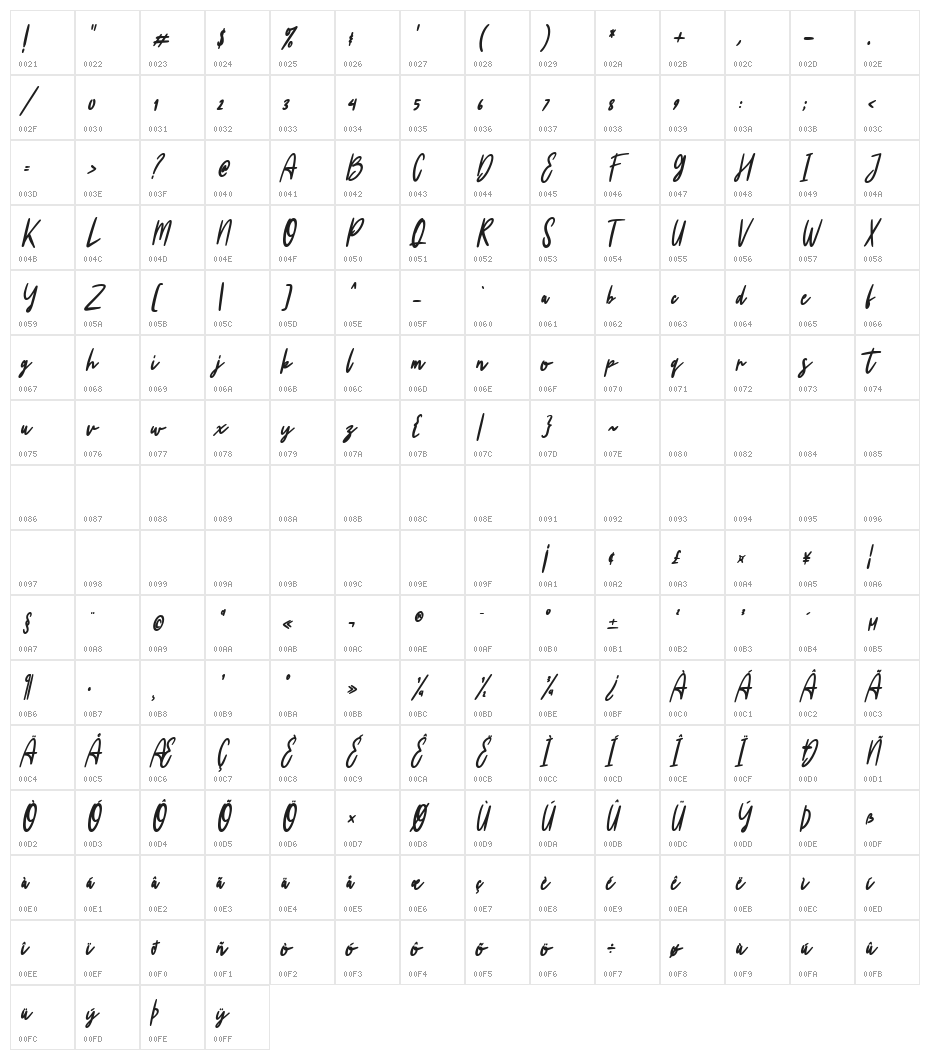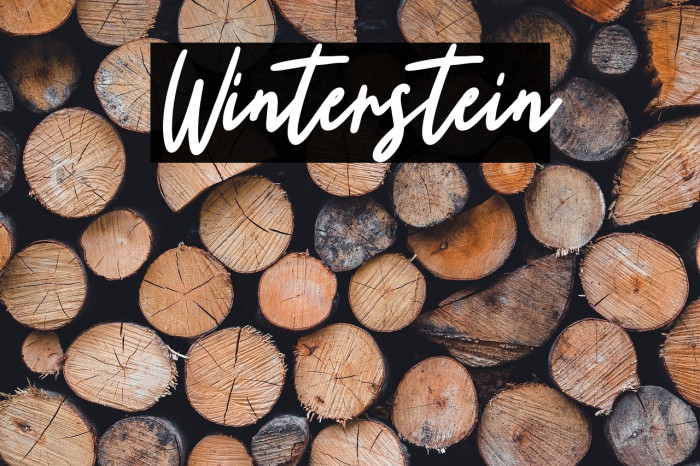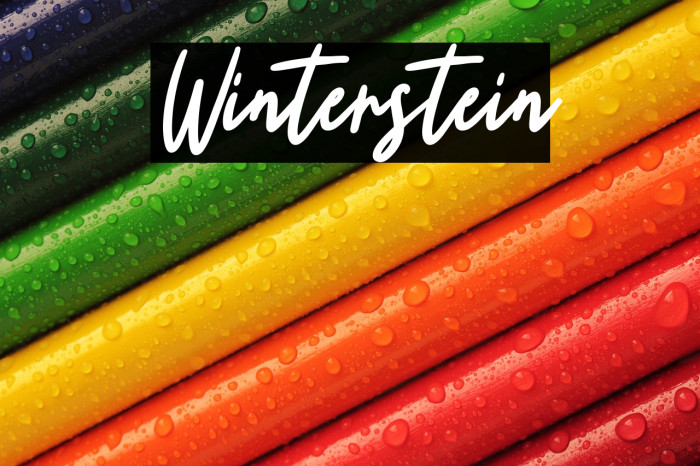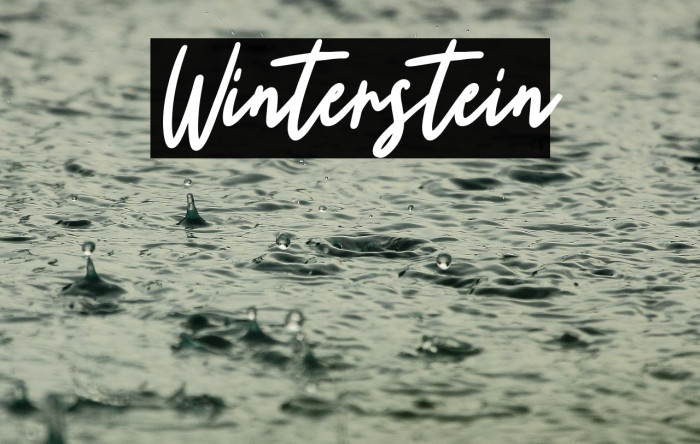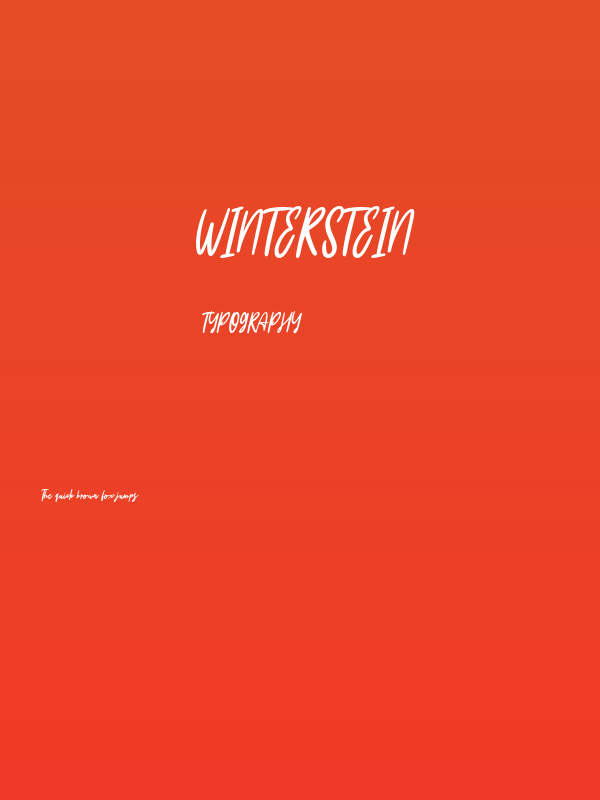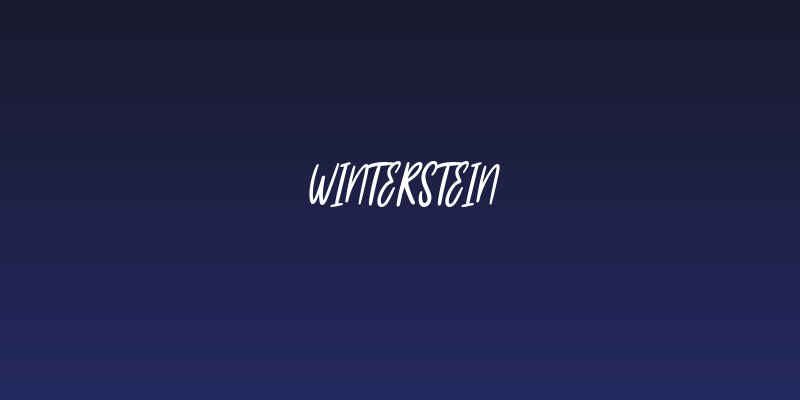
Winterstein Font
Winterstein Description
A bold, handwritten script font with a modern and casual style, featuring smooth curves and a flowing baseline.
| Overall Style | Modern, Casual |
| Use Case | Logos, Headlines, Invitations |
| Proposed Projects | Greeting cards, invitations, logos, social media graphics. |